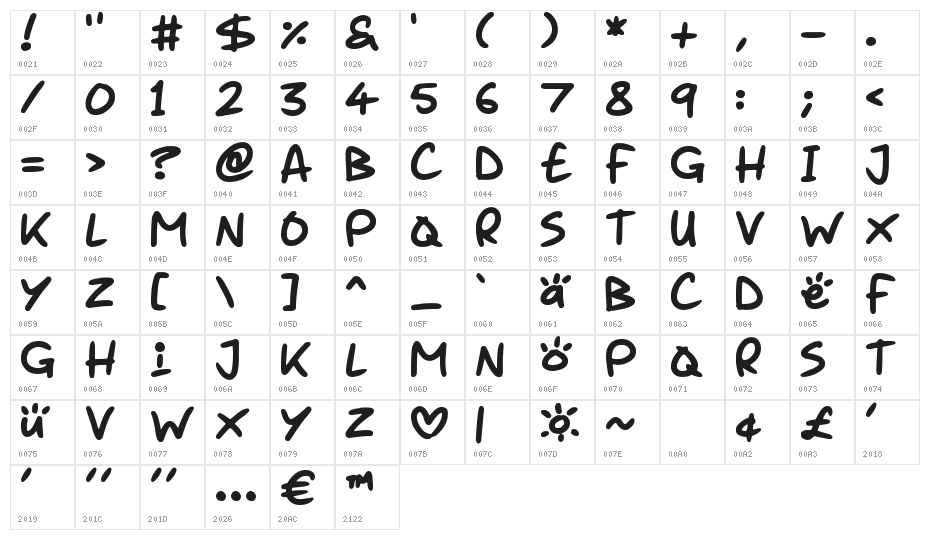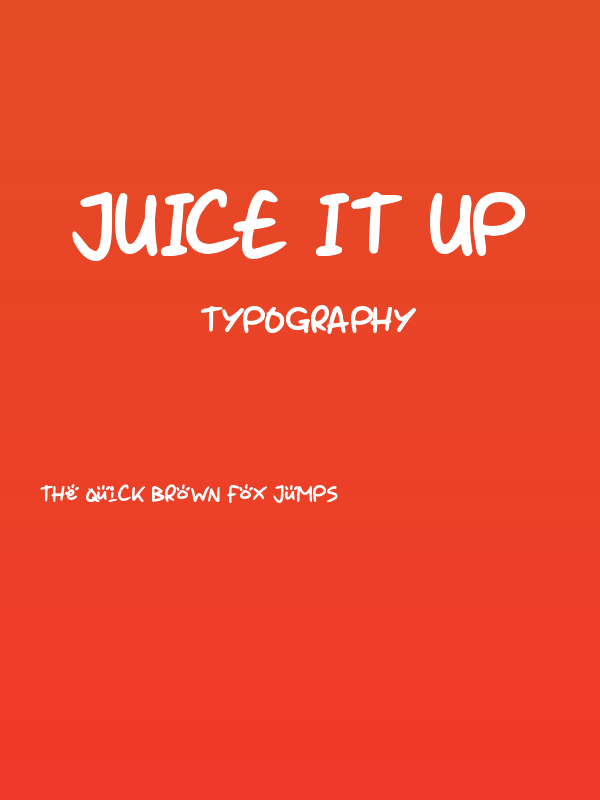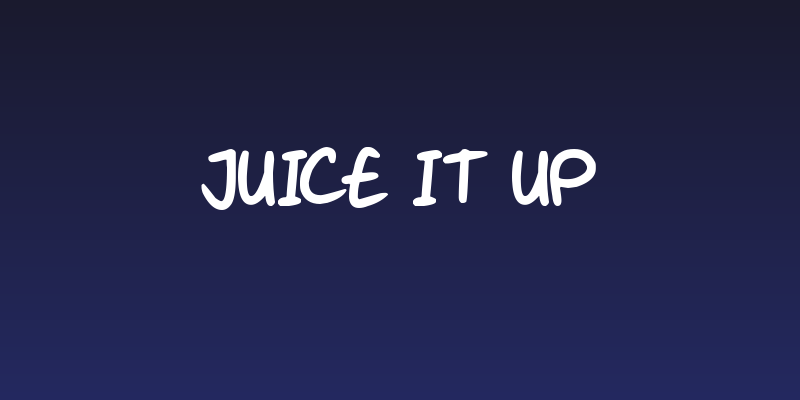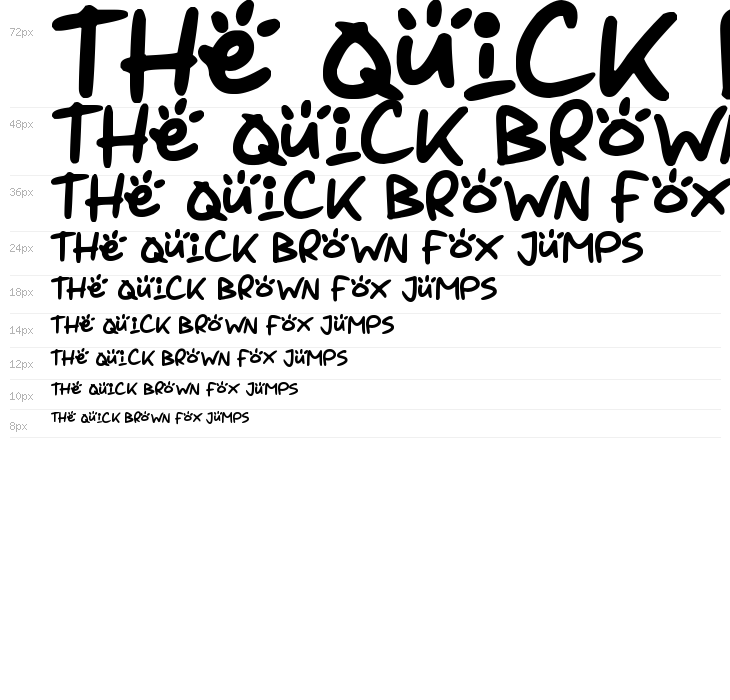
Juice it up Font
Juice it up Description
This playful and energetic font features a bold, hand-drawn style with a slightly irregular baseline, giving it a lively and informal appearance. The characters are rounded and thick, with a consistent stroke width that adds to its boldness. The uppercase and lowercase letters maintain a cohesive look, while the numbers and special characters complement the overall style. The font's whimsical nature makes it ideal for projects that require a fun and approachable aesthetic. Its unique character shapes and playful design elements, such as the dots on the 'i' and 'j', enhance its charm and appeal.
| Proposed Projects | Ideal for children's books, playful branding, party invitations, and casual social media graphics. |